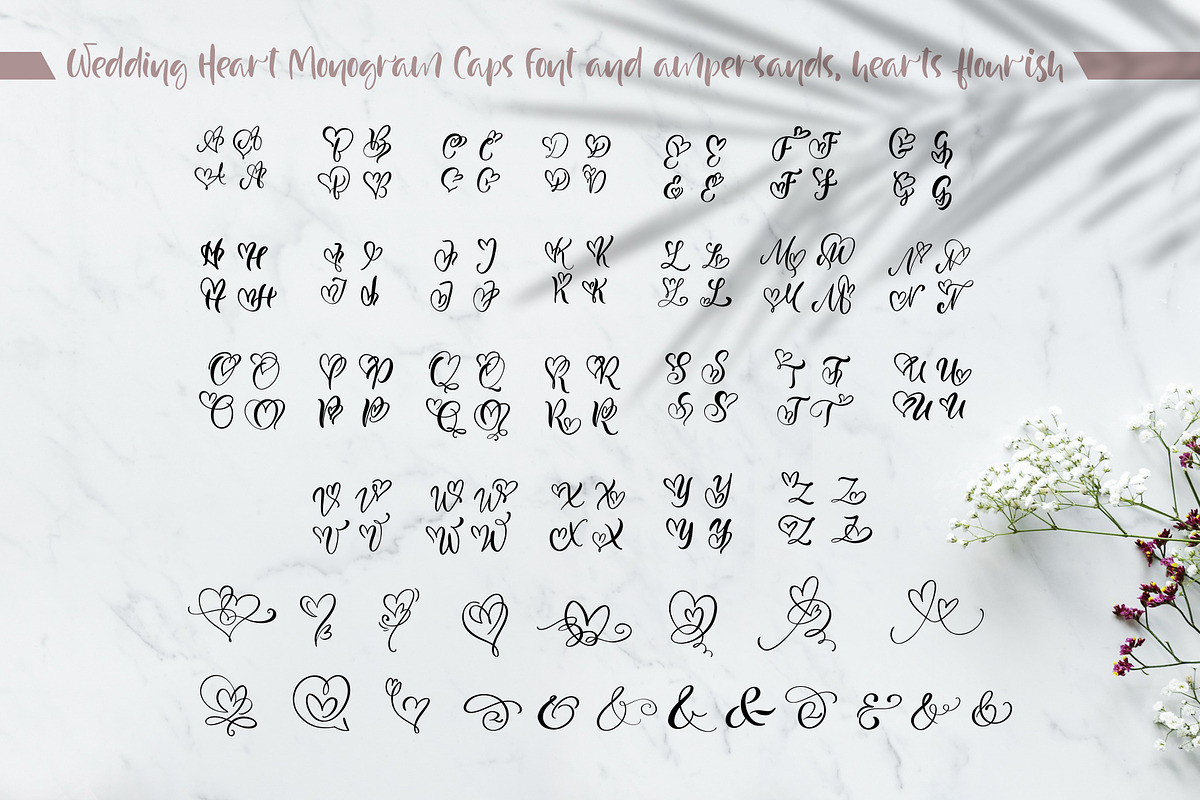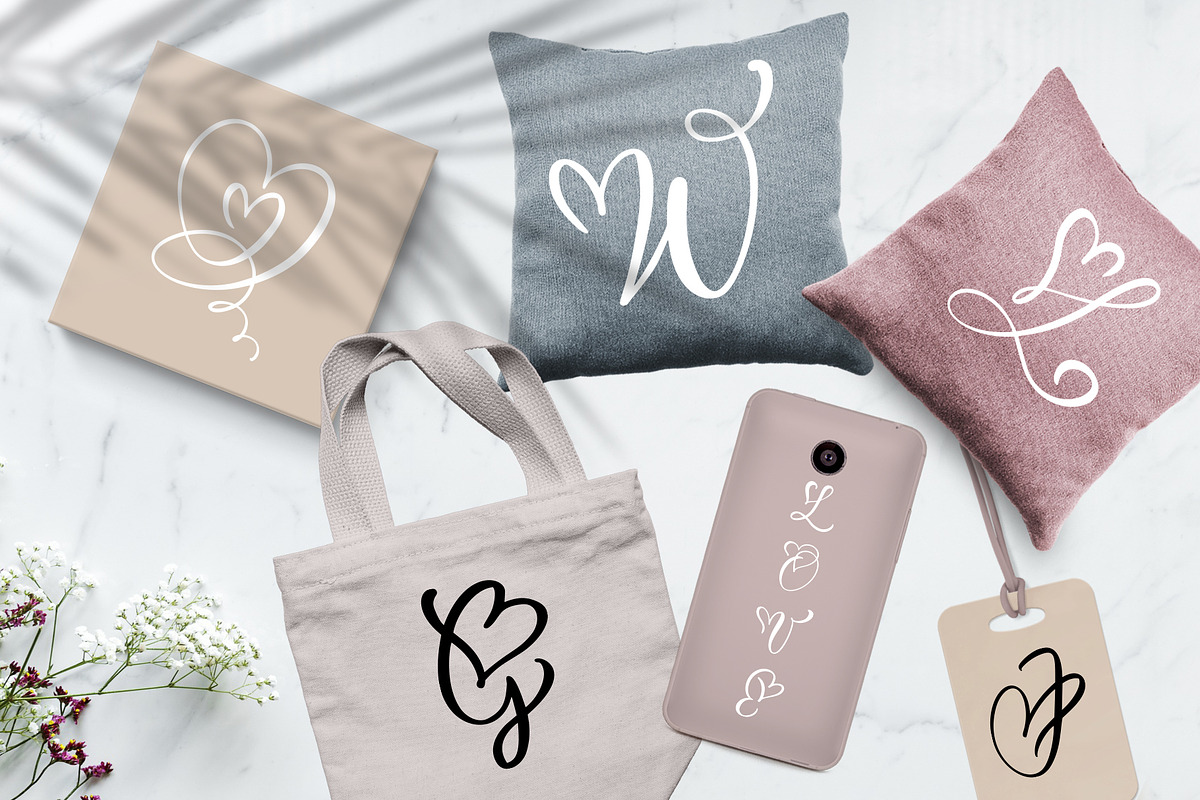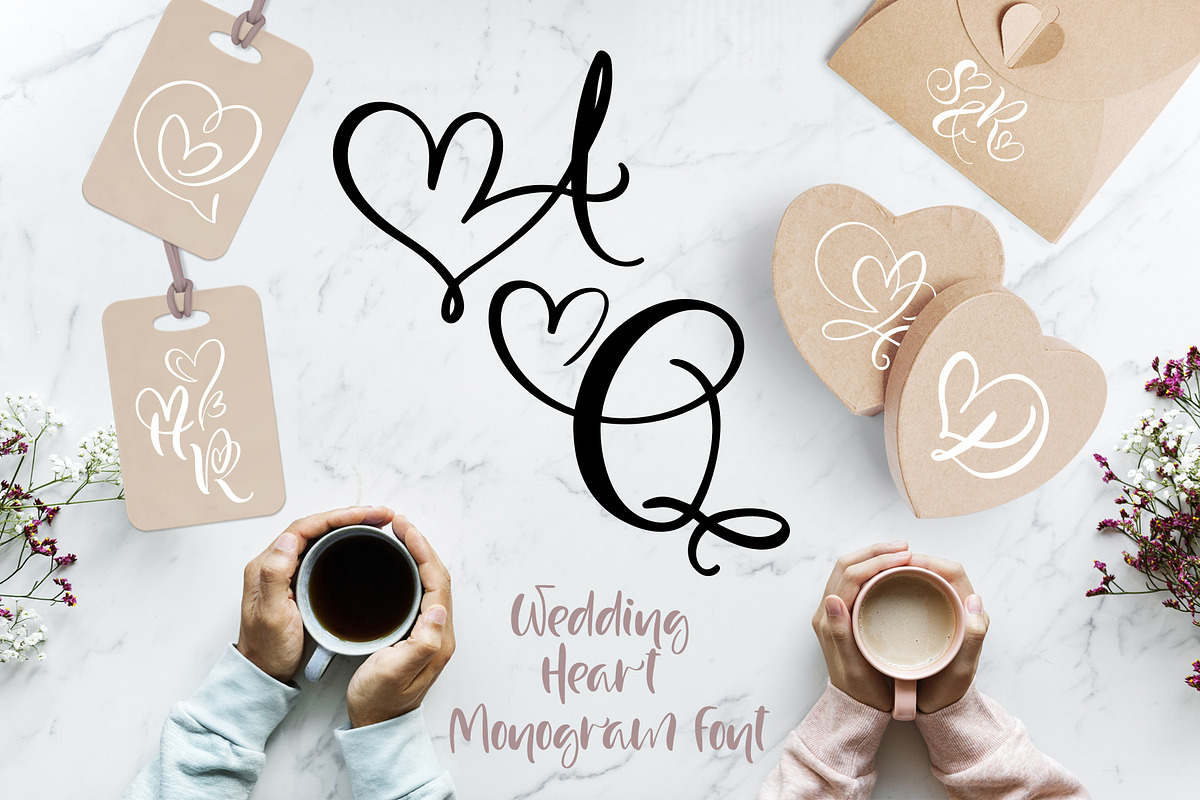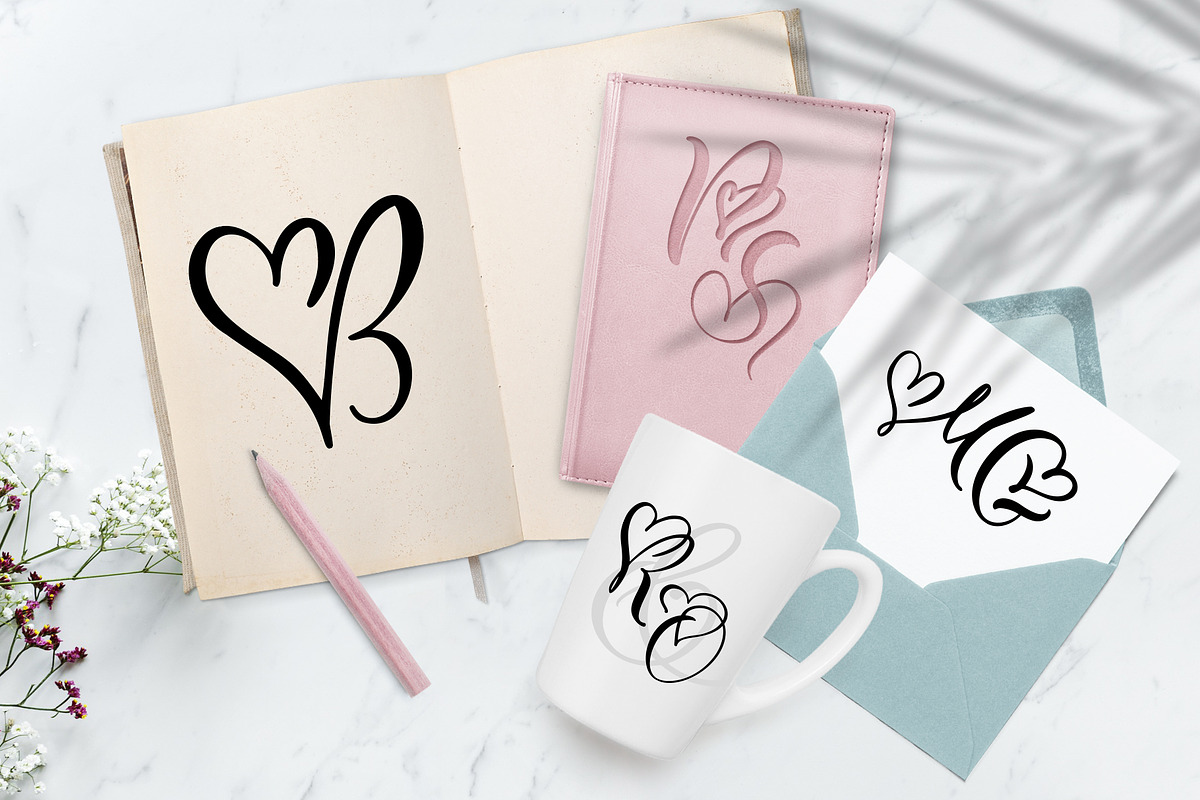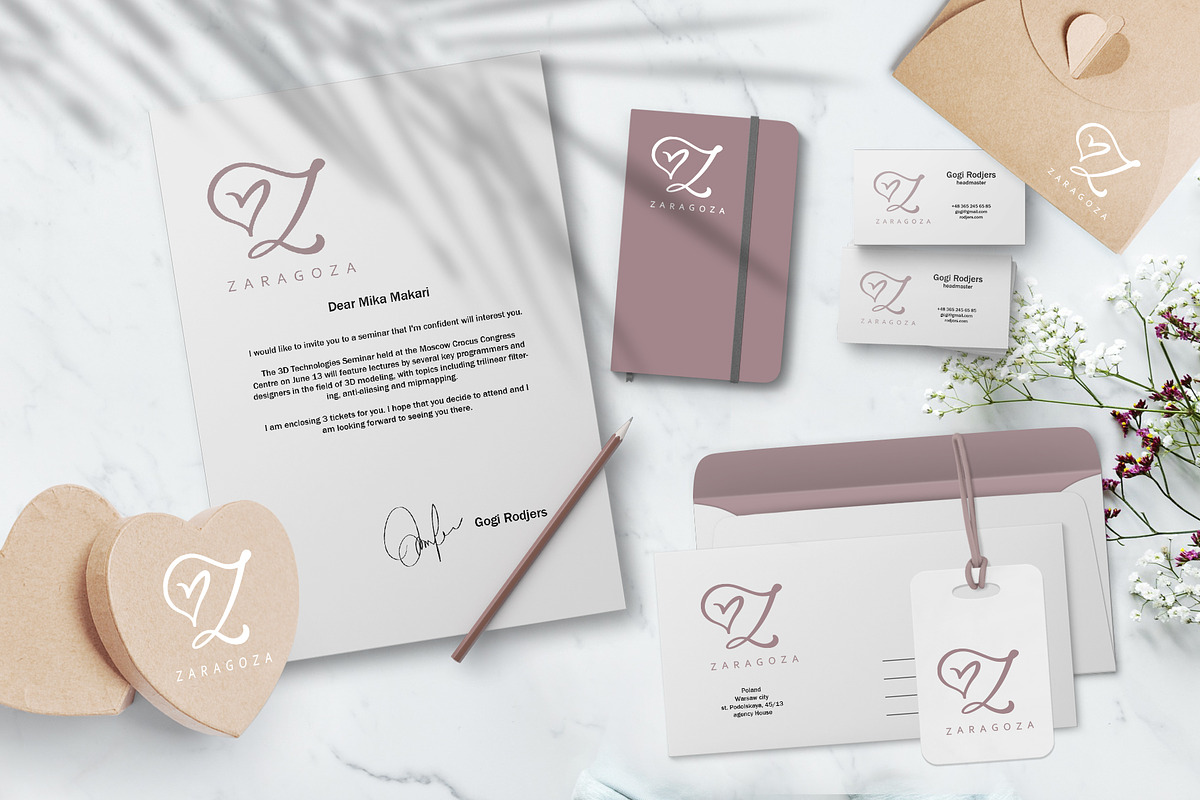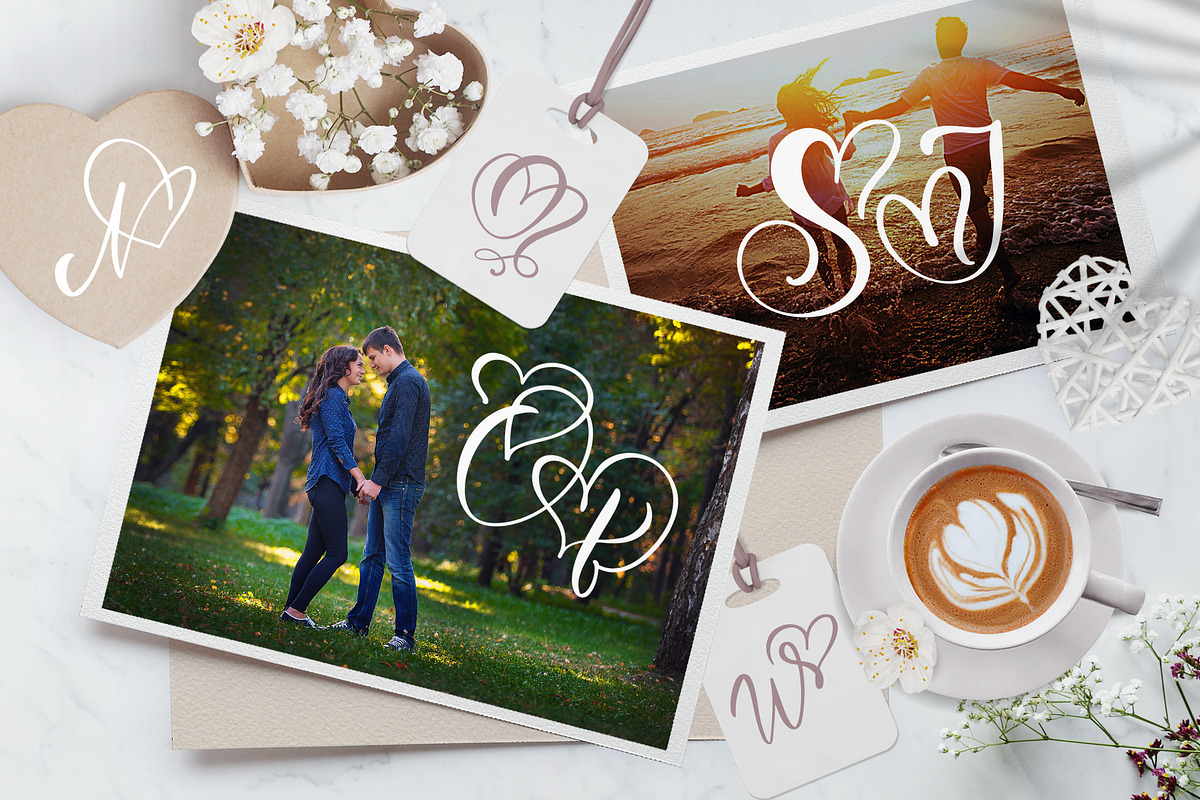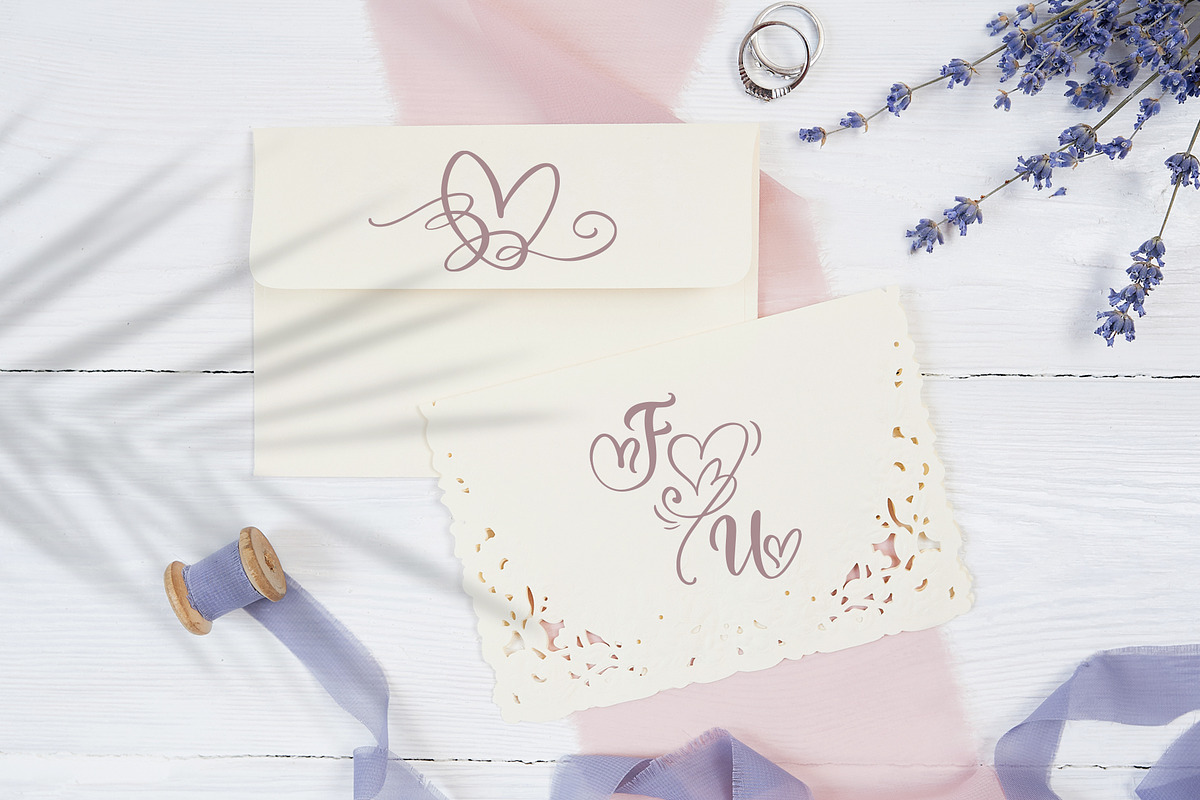
Wedding Heart Monogram Font
Wedding Heart Monogram Font includes unique flourishes heart letters that give romantic and love for wedding holiday greeting cards, invitations, etc. Thin, elegant calligraphic lines give freshness to your handmade creations.
In this font, uppercase and lowercase characters are same. Only lowercase characters have 3 alternatives.
Also, instead of numbers and exclamation mark there are illustrations of hearts. Ampersand has several alternatives. The choice of alternative letters is possible in Photoshop and Illustrator CC and other programs that support alternatives.
PERFECT FOR Decorate your albums, wedding and holiday greeting cards (Christmas, Birthday, Valentine's Day other holidays), logos, gift shops, tag, social media, internet shops presentation.
2. This font is not for writing words or sentences, but for monograms. For example A&H.
- In this font, uppercase and lowercase characters are same.
- Only lowercase characters have 3 alternatives.
Why Wedding Heart Monogram Font is worth a look
Wedding Heart Monogram Font by Happy Letters fits naturally into Branding, posters, packaging, typography.